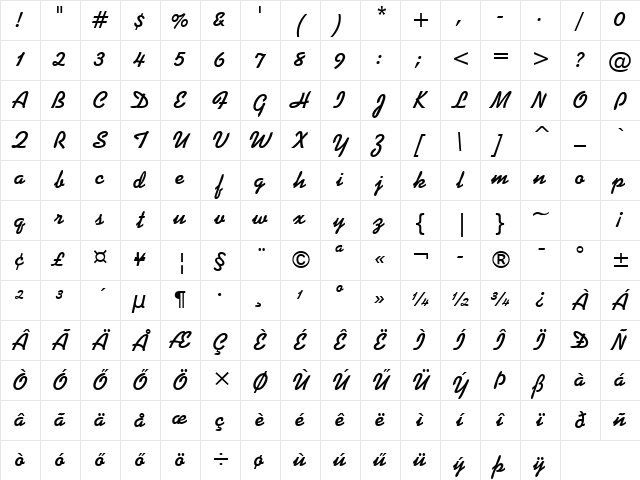
Hu_Kaufn Regular
Design Context for Hu_Kaufn
Hu_Kaufn is a composed and adaptable typeface that performs quietly and consistently across a wide range of design contexts.